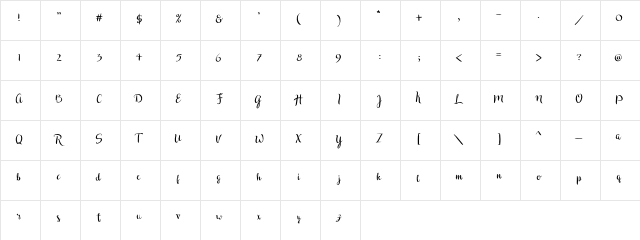
Druchilla Druchilla
Design Context for Druchilla Typeface
Druchilla is a composed and adaptable typeface that performs quietly and consistently across a wide range of design contexts.